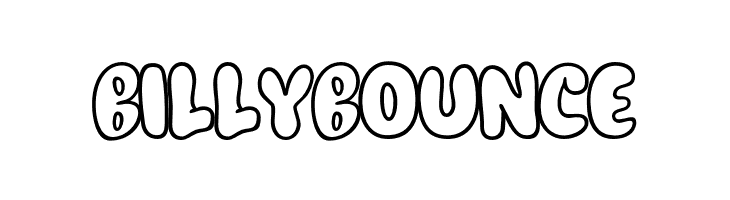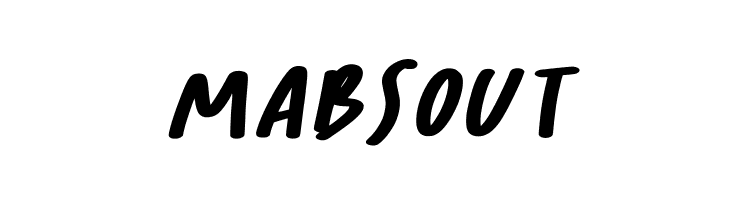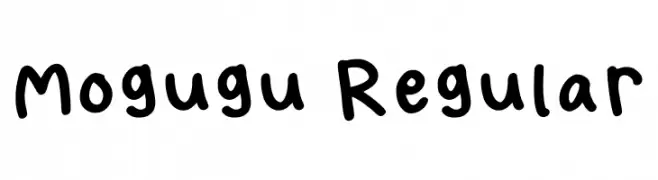
( Fonts by Madern Omden )
A playful, comic-style font with rounded, bold characters and a hand-drawn feel.
( Fonts by Eko Bimantara )
A bold, impactful font with thick, uniform strokes and slightly condensed characters.
( Fonts by Edson Lemos )
A bold, playful hand-drawn font with a lively and energetic style.
( Fonts by Eko Bimantara )
A playful, hand-drawn font with bold, textured characters.
( Fonts by Khurasan™ )
A bold, playful font with rounded, bubbly characters perfect for fun designs.
( Fonts by Khurasan™ )
A playful, handwritten font with smooth, rounded edges and a friendly appearance.
( Fonts by Enxyclo Studio )
A playful, handwritten font with rounded, bold characters.
A playful, hand-drawn font with a bold, tiki-inspired style.
( Fonts by Khurasan™ )
A bold, playful font with rounded, thick strokes and a bubbly appearance.
( Fonts by Studio Hello Good )
A bold, playful handwritten font with dynamic, irregular strokes.
A bold, playful font with rounded, hand-drawn style characters.
A bold, playful font with a hand-drawn, textured style.
( Fonts by Khurasan™ )
A bold, playful font with rounded, bubbly characters and a whimsical style.
( Fonts by Wildan Type )
A bold, playful font with a hand-drawn, whimsical style.
A bold, textured font with a hand-drawn, energetic style.
( Fonts by Wildan Type )
A playful, hand-drawn font with bold, rounded characters and a whimsical style.
( Fonts by Yumna Family )
A playful, bold font with rounded, smooth characters and a whimsical style.
( Fonts by fsuarez913 )
A bold, rounded typeface with a playful and whimsical style.
( Fonts by MJType )
A bold, playful font with rounded, bubbly characters ideal for fun designs.
( Fonts by Wildan Type )
A bold, playful font with a hand-drawn, energetic style.
( Fonts by Wildan Type )
A playful, bold font with rounded characters and whimsical heart details.
( Fonts by Wildan Type )
A playful, hand-drawn font with bold, rounded characters and a whimsical style.
( Fonts by Subectype & Orenari )
A graceful, handwritten font with a fluid, cursive style.
( Fonts by Skiiller Studio )
A bold, playful font with thick, rounded strokes and a friendly appearance.
( Fonts by Timur Type )
A lively and dynamic handwritten font with fluid strokes.
( Fonts by Lemonthe )
A cursive, handwritten-style font with elegant, flowing characters.
( Fonts by Maulana Creative )
A lively, cursive font with bold, expressive strokes and a natural handwriting style.
( Fonts by vanessacapit )
A playful, hand-drawn font with tall, narrow letters and a whimsical style.
A bold, playful font with thick, rounded strokes and a hand-drawn feel.
( Fonts by Belina Studio )